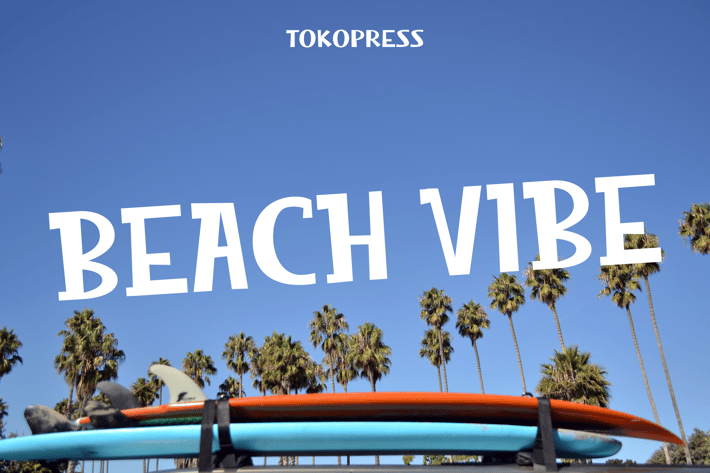
Beach Vibe - Summer font
“Beach Vibe” is a sun-soaked bold display font with retro curves and a relaxed structure, perfect for summer event posters and travel branding that needs to stand out with warmth and personality. Its wide-set letterforms, chunky strokes, and slightly wavy alignment echo the rhythm of ocean waves and beach boardwalk signs. The vibe is fun, slightly nostalgic, and unmistakably expressive—ideal for warm-weather content with a casual yet confident tone.
This font works beautifully for Instagram travel feeds, beach bar logos, lifestyle packaging, and everything in between. Its playful geometry and well-balanced proportions bring a joyful presence without overwhelming your design.
Whether you’re launching a summer product line, designing a beach party invite, or branding a coastal café, Beach Vibe instantly communicates laid-back charm and attention-grabbing energy. It’s crafted for creators who want their designs to radiate warmth and connection—great for travel posters, YouTube thumbnails, music festivals, or tropical drink labels. Add emotional pull and personality to your visuals while keeping your layout clean and bold.
Key Features :
Bold and Playful Display Lettering
- Retro-inspired curves with a relaxed modern flow
- Designed for impact across headers, ads, packaging
- Excellent legibility for posters, social media, signage
- Matches well with summer, beach, travel, and festival themes
Design-Ready Versatility
- Ideal for branding, event promos, social content
- Strong baseline with natural width balance
- Works beautifully in both color-heavy and minimalist layouts